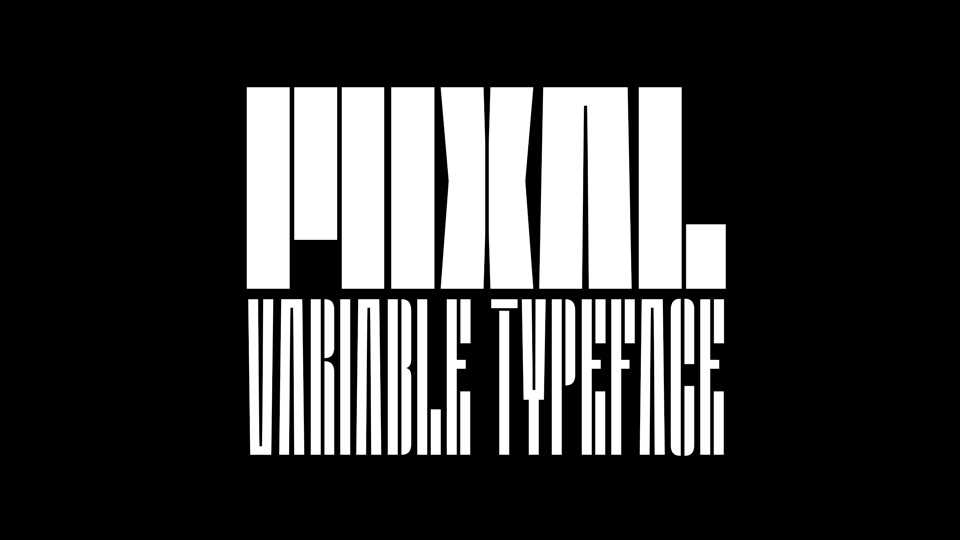
Download Mixal typeface, a contemporary font family that play with extreme of legibility and minimal shape. From Hairline with a brittle flavor, to Heavy where emerge a feeling of flat block, Mixal offer a rich range of possibility for graphic design.